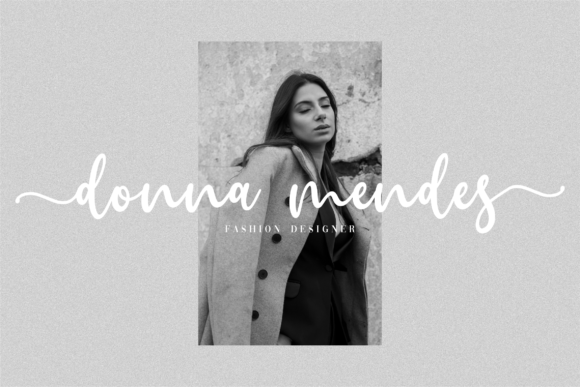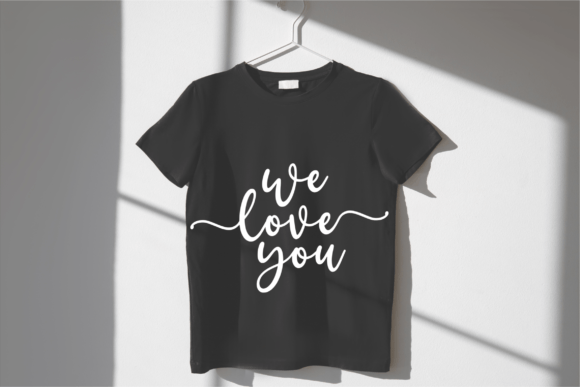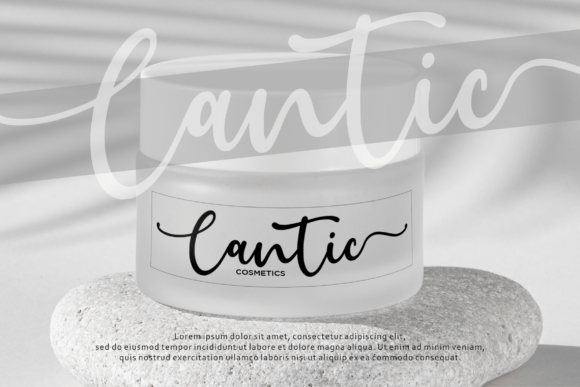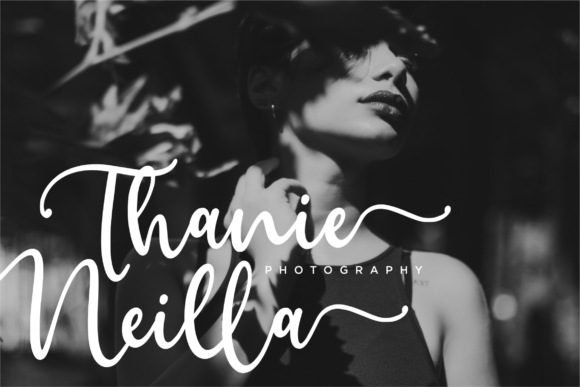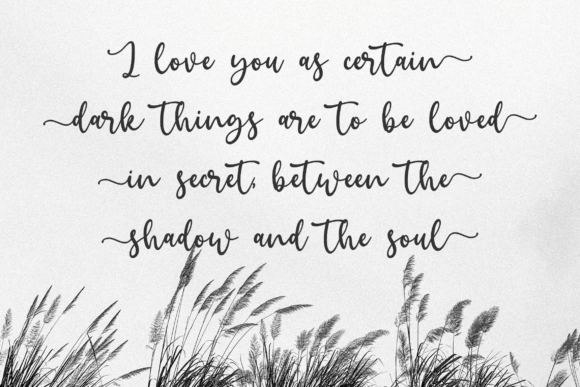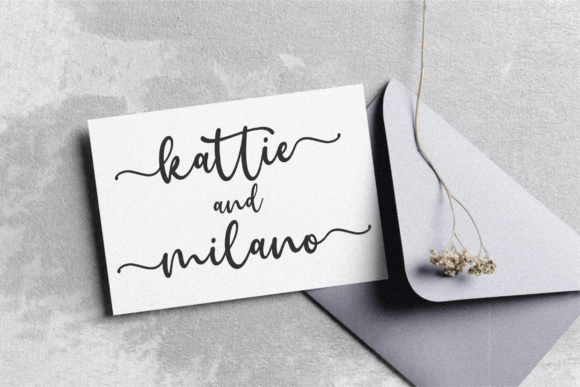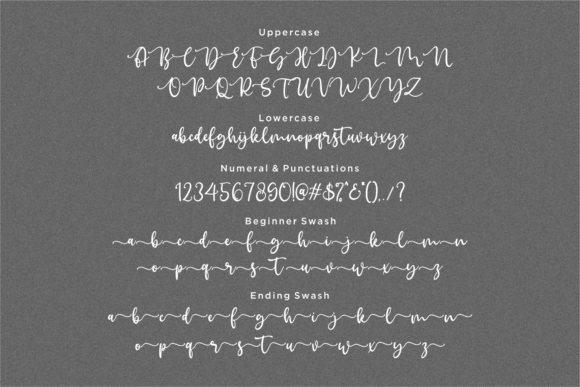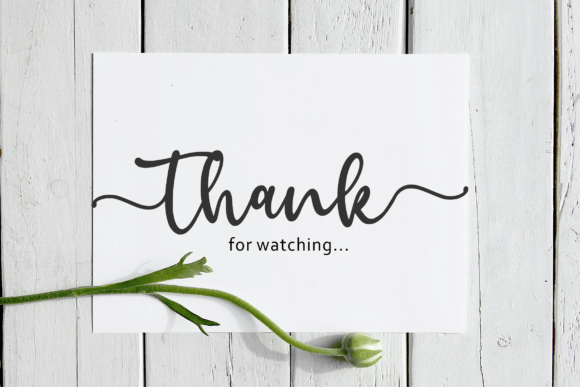
Jeannica Font
About Jeannica Font
**Jeannica** is a font that epitomizes modernity and elegance, designed in a script calligraphy style that exudes a unique flow and sophisticated personality. Its graceful and fluid letterforms make it a versatile choice for a wide array of design projects, adding an air of elegance and charm. By incorporating **Jeannica** into your designs, you can infuse them with a sense of sophistication and creativity, ensuring they stand out with a distinctive and elegant appeal.
**Unique Flow and Elegance**: **Jeannica** boasts a unique flow and elegance that set it apart. Its smooth and flowing letterforms create a sense of grace and sophistication, making it ideal for projects that demand a touch of elegance and style. The font’s elegant personality adds a refined and polished vibe to the text, ensuring it looks sophisticated and upscale.
**Versatile Design Project**: **Jeannica** is well-suited for a wide range of design projects, making it highly versatile. Whether used in logo design, branding, book covers, posters, or other creative endeavors, the font seamlessly integrates into different applications. Its elegant appearance enhances the visual appeal of diverse projects, adding a touch of creativity and sophistication to the content.
**Access to Amazing Glyphs and Ligatures**: The font’s PUA encoding allows easy access to all glyphs and ligatures, enhancing creative freedom. Designers can explore various letter combinations and decorative elements, customizing the font to suit specific design needs. This feature adds versatility and flexibility to the font, encouraging experimentation and artistic expression.
**Personal and Elegant Touch**: **Jeannica** adds a personal and elegant touch to designs, elevating them with its sophisticated aesthetics. Its handwritten style conveys a sense of intimacy and authenticity, making it suitable for projects that require a personal and human touch. The font’s elegance creates a sense of luxury and exclusivity, making the designs feel refined and high-end.
In summary, **Jeannica** is more than just a font; it’s a symbol of elegance, creativity, and sophistication. Its unique flow and elegant personality, coupled with its versatility and access to amazing glyphs, make it a valuable asset for a variety of design projects. By incorporating **Jeannica** into your designs, you can create a distinctive and sophisticated visual experience, ensuring your projects resonate with style and creativity. Let **Jeannica** be the elegant and creative companion that adds a touch of sophistication to your creative endeavors, making them truly exceptional and memorable.